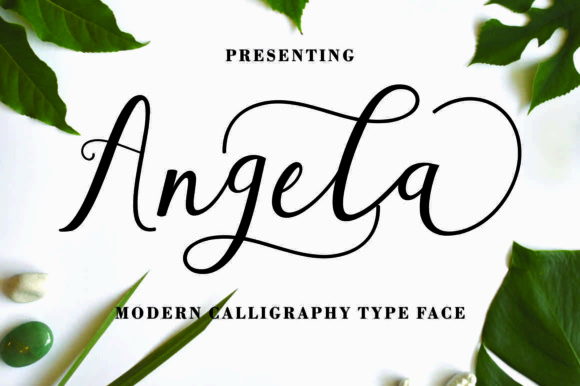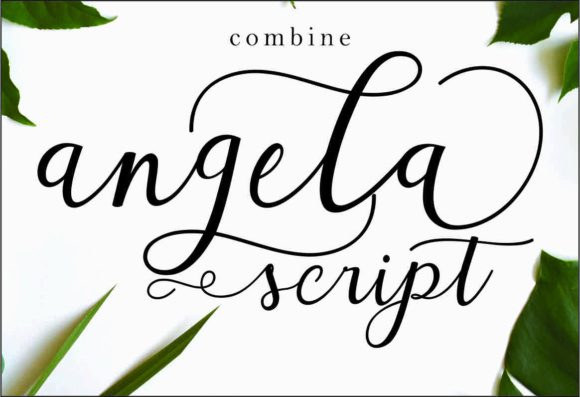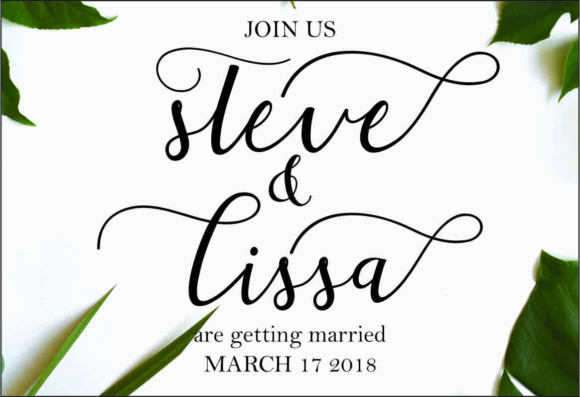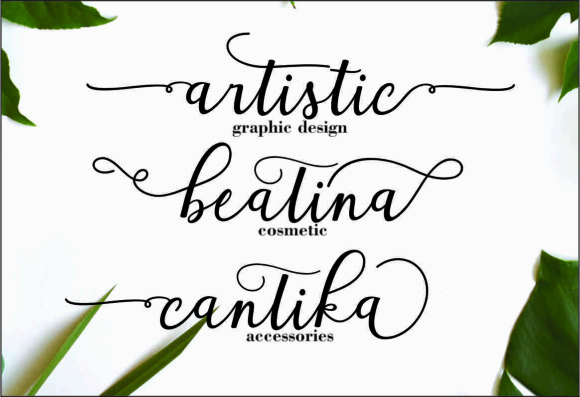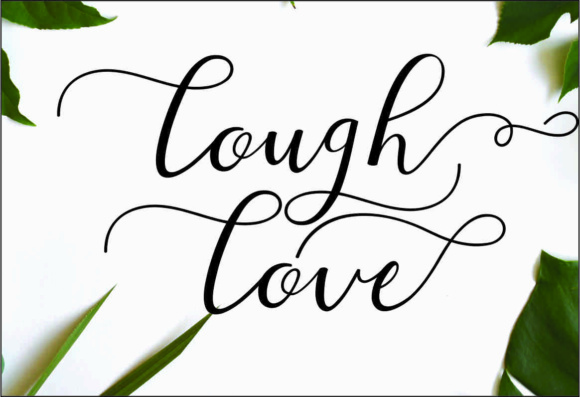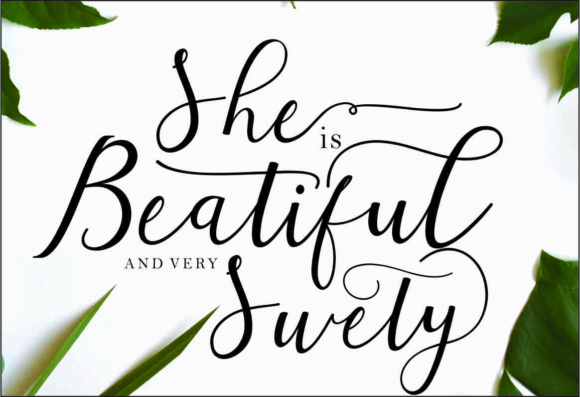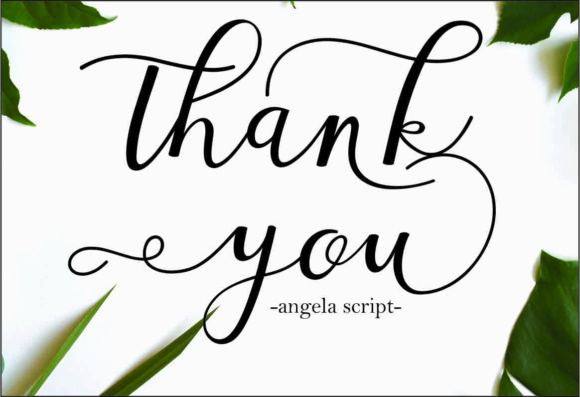
Angela Script Font
About Angela Script Font
Angela is script font with modern hand scratches. It contains lots of beautiful swashes which give your design an elegant and feminine touch. With its trendy and natural style, Angela can be used for various designs.